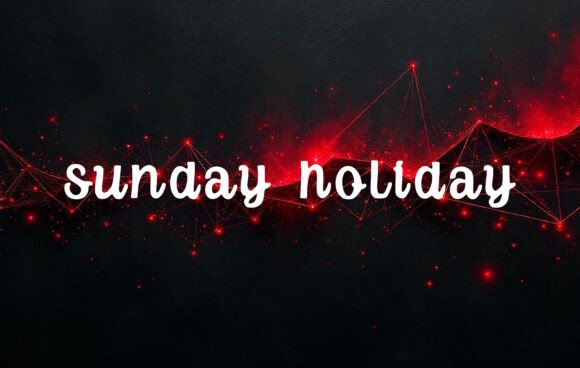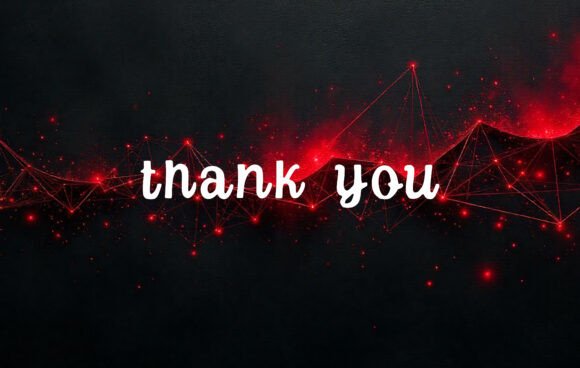
Creating Lasting Impressions: The Power of Connection Font
As a designer, there’s nothing quite like the thrill of bringing a project to life – the moment when all the pieces fall into place, and your vision begins to take shape. It’s a feeling that’s hard to replicate, but one that’s often sparked by the perfect font. For those seeking to craft a truly unforgettable brand identity, the Connection Font is an excellent choice. With its elegant, flowing lines and sophisticated charm, this typeface is designed to evoke a sense of romance and modern flair.
What sets Connection Font apart is its remarkable versatility, making it an invaluable asset for designers. Whether you’re working on high-end branding, editorial design, or luxury lifestyle projects, this font delivers a look that’s both professional and heartfelt. Its clean, sweeping curves and timeless appeal ensure that your design will leave a lasting impression on your audience.
Connection Font Key Features
- Font Family: Connection Font is a sans-serif font family, designed to provide a modern and clean aesthetic.
- Unique Characteristics: Connection Font features a unique blend of modern and classic elements, with a focus on legibility and readability in digital environments.
Designer Review: Connection Font
At first glance, Connection Font seems like a beautiful addition to any design project. The overall aesthetic is modern and sleek, with clean lines and a friendly feel. ✨ I particularly appreciate the range of weights and styles available, making it easy to adapt to different design contexts.
- ✨ Elegant, modern feel that works well in both digital and print designs
- ✨ Highly customizable with a range of weights and styles
- ✨ Friendly, approachable tone that makes it easy to connect with your audience
However, I do have a few reservations about Connection Font. The most notable limitation is its limited language support ⚠️. While it’s great for English-speaking audiences, designers working in other languages may find it lacking.
- ⚠️ Limited language support, which may be a problem for designers working in non-English speaking markets
- ⚠️ Not as versatile as some other fonts in terms of creative applications (e.g. logo design, signage)
Overall, I think Connection Font is a solid choice for designers looking for a clean, modern font. While it may have some limitations, its strengths make it a great addition to any design project.
For a more professional look, pair the Connection Font with a clean and simple background design.
To create a striking visual effect, use the Connection Font in combination with bold lines or shapes.
For a professional presentation, use the Connection Font consistently throughout your slides or document.
The Connection Font is ideal for:
- Corporate branding and identity
- Business presentations and reports
- Marketing materials and advertising
Remember to use the Connection Font in a way that aligns with your brand’s tone and style.
Alternative Fonts for Connection
Playfair Display is an elegant serif font, ideal for high-end branding, luxury goods, and fine printing. It’s perfect for designers who want to convey sophistication and refinement. Compared to Connection Font, Playfair Display has a more classical and luxurious feel, making it suitable for high-end designs.
Merriweather is a classic serif font, suitable for body text and print materials. It’s a great choice for designers who want to create a timeless and professional look. Compared to Connection Font, Merriweather is more traditional and formal, making it ideal for corporate designs and publications.